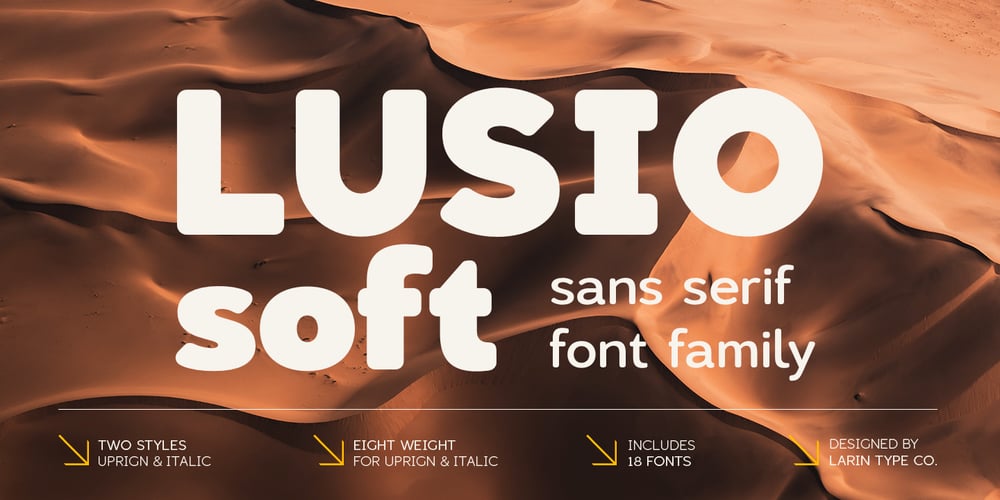
Lusio Soft Font Family was designed by Pavel Larin and published by Larin Type Co. Lusio Soft contains 18 styles and family package options. Lusio Soft It is a rounded sans serif font family with moderately open apertures, low visual contrast and high legibility. It includes 9 weights and italic to them from thin to black. It is versatile and suitable for a wide range of applications due to its practicality and conciseness. It works great with text in both small and large, whether it’s a title or a description, it will do an excellent job with this task.With it, you can create logos, labels, use in advertising, packaging, branding, book covers and magazines, cosmetics, banners, posters, headings, descriptions and much more.